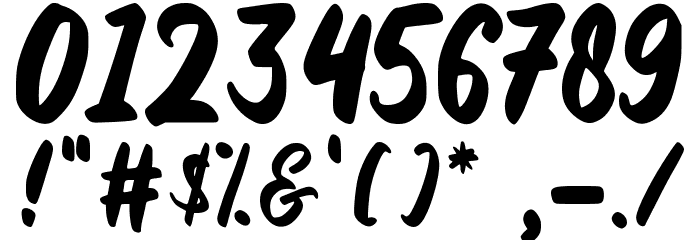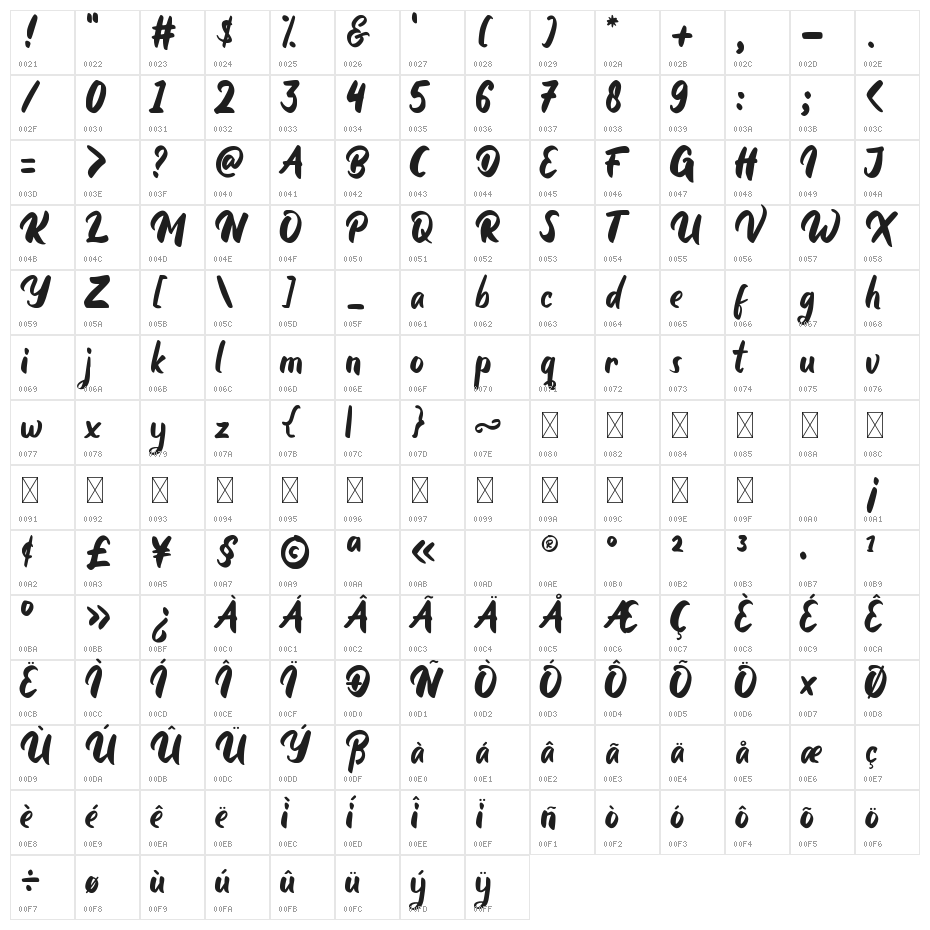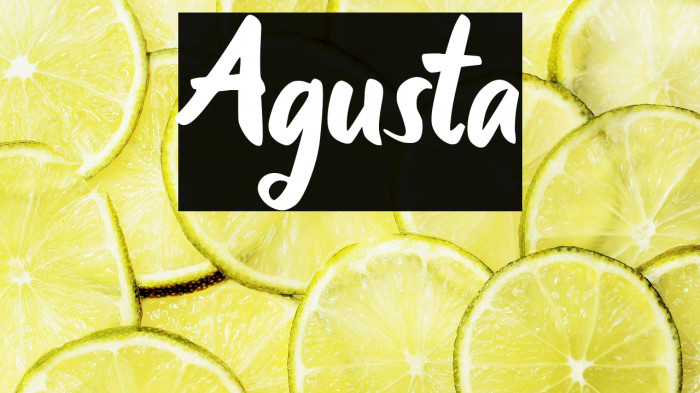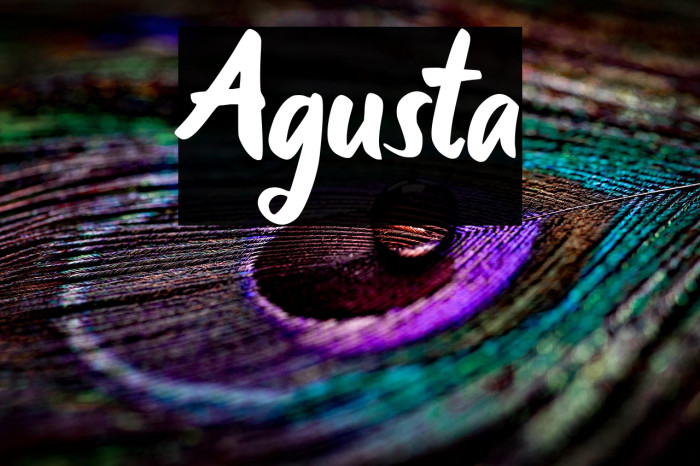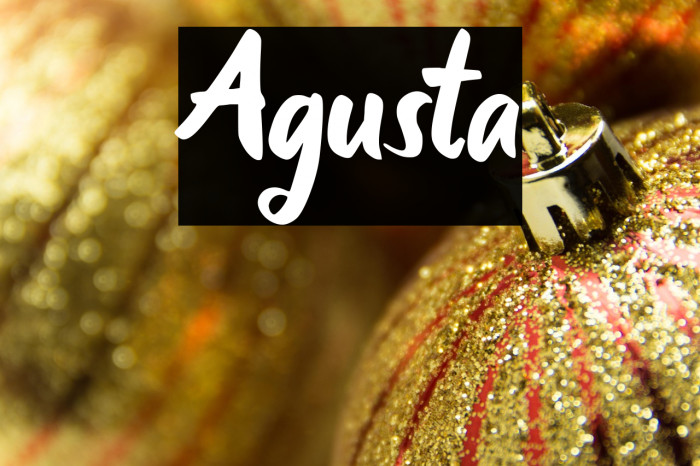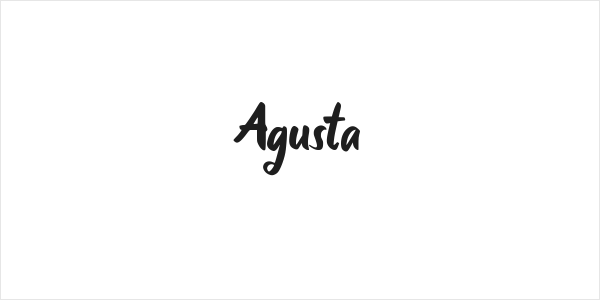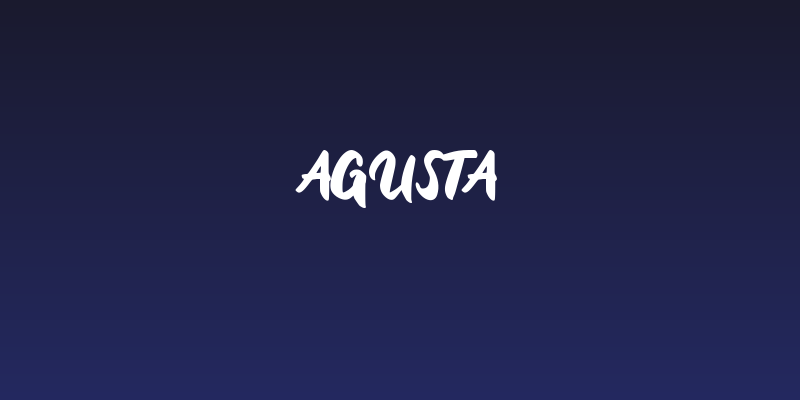
Agusta Font
Agusta Description
This font features a bold and expressive script style with a dynamic flow, reminiscent of hand-painted lettering. The characters are connected, creating a sense of movement and fluidity. The strokes are thick and consistent, giving the font a strong presence. The uppercase letters are slightly more angular, while the lowercase letters maintain a rounded, cursive appearance. The numbers and special characters are designed to match the overall aesthetic, ensuring a cohesive look across all text. This font is ideal for projects that require a personal touch or a sense of creativity and energy.